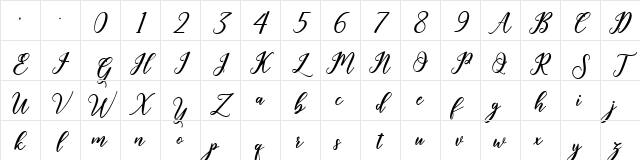
Geralyn is a composed and adaptable typeface that performs quietly and consistently across a wide range of design contexts.
Pro Tip: Use Geralyn in both headline and body roles to test its range before committing to a single application.